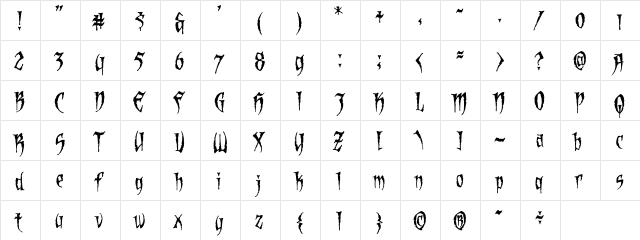
CCDeadMansChest Regular
Design Context for CCDeadMansChest Typeface
CCDeadMansChest is a composed and adaptable typeface that performs quietly and consistently across a wide range of design contexts.